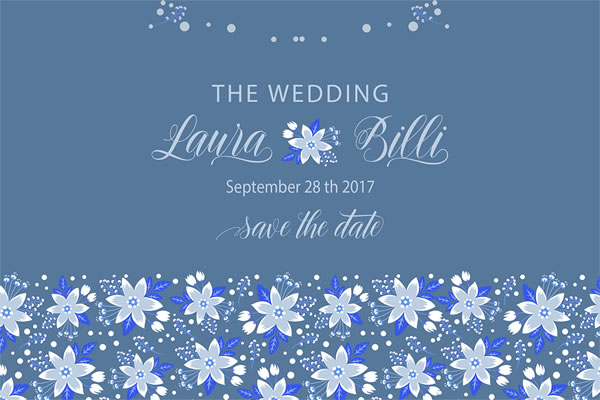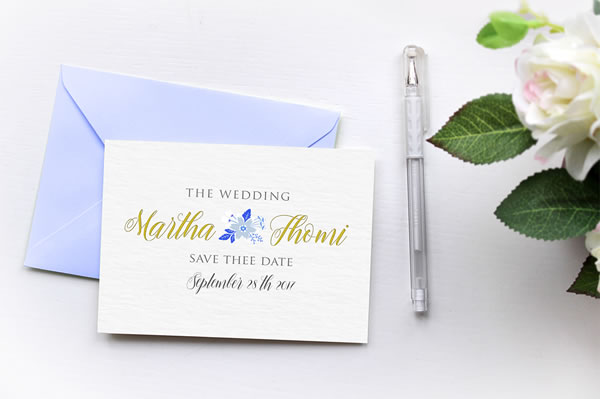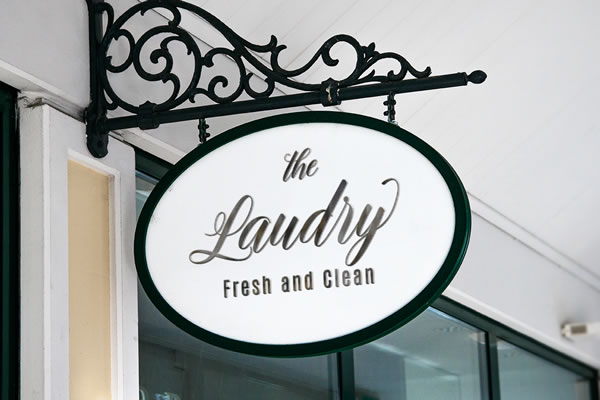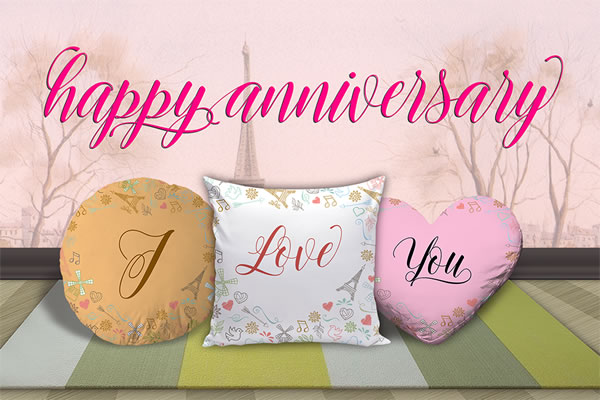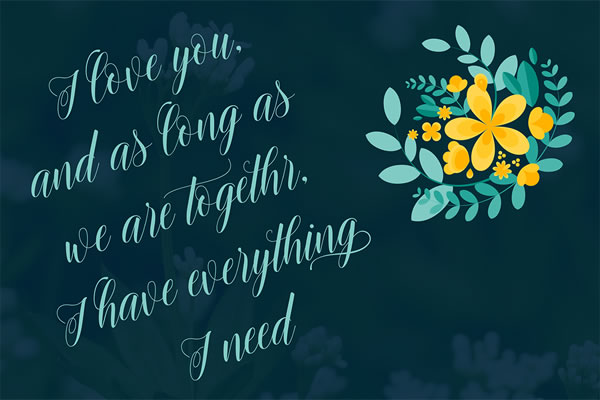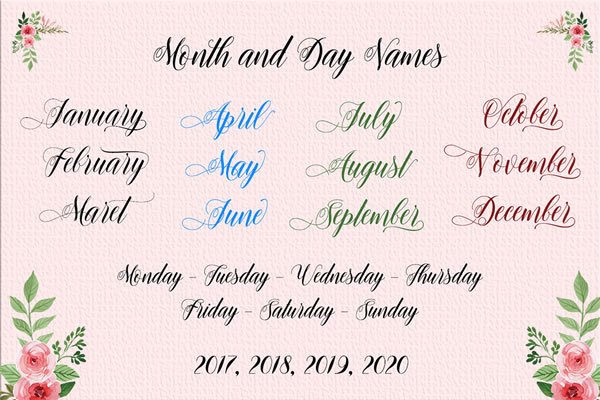
Rosenesya Font
About Rosenesya Font
Rosenesya is a stylish handwritten calligraphy script.
It features a varying baseline which makes it a fun and playful font. It is designed to breathe elegance and class. For this reason it can be used for many types of projects.
The font features over 450 unique glyphs with 219 alternate characters. These include initial and terminal alternates, ligatures & multilingual support.